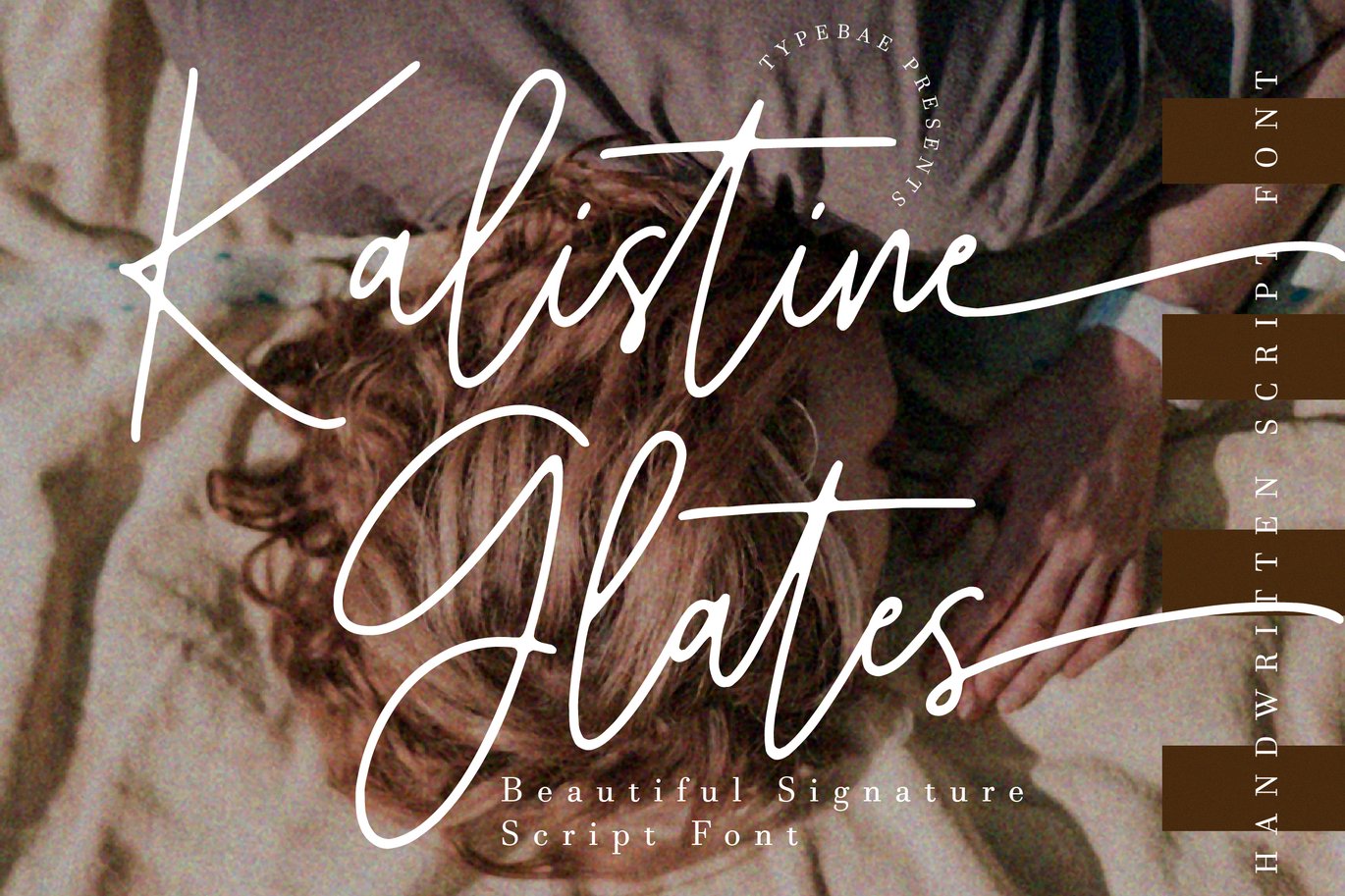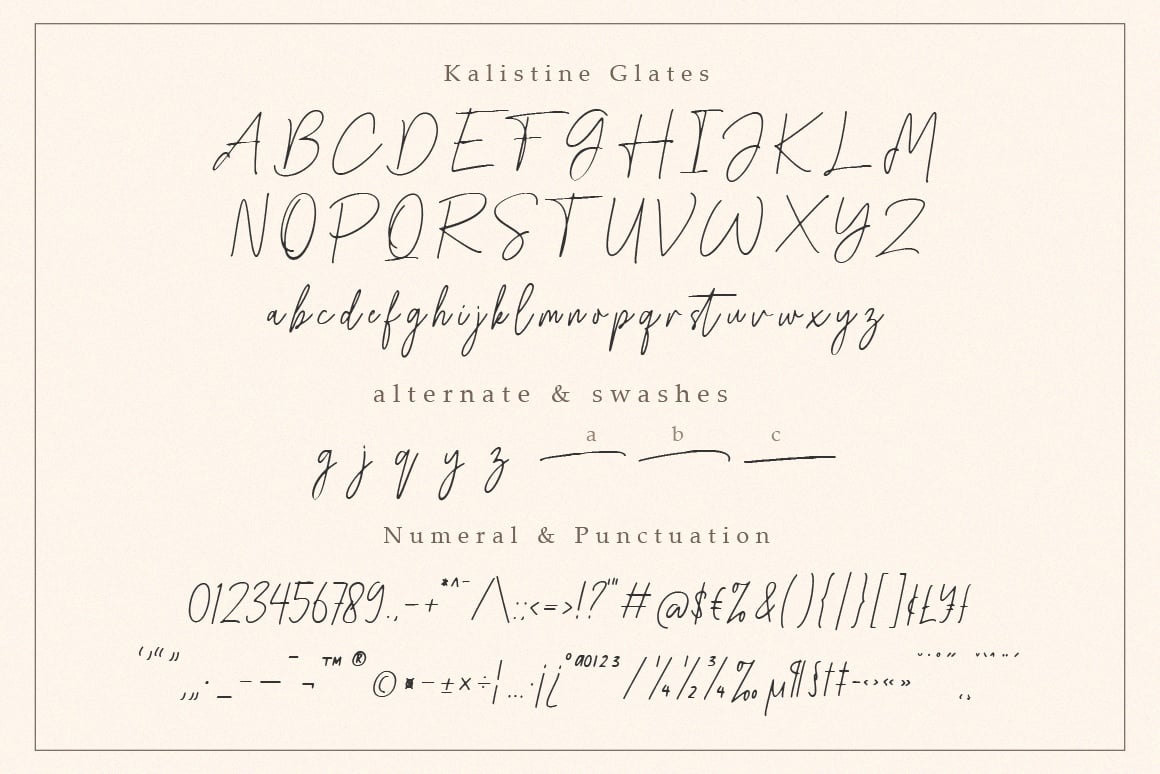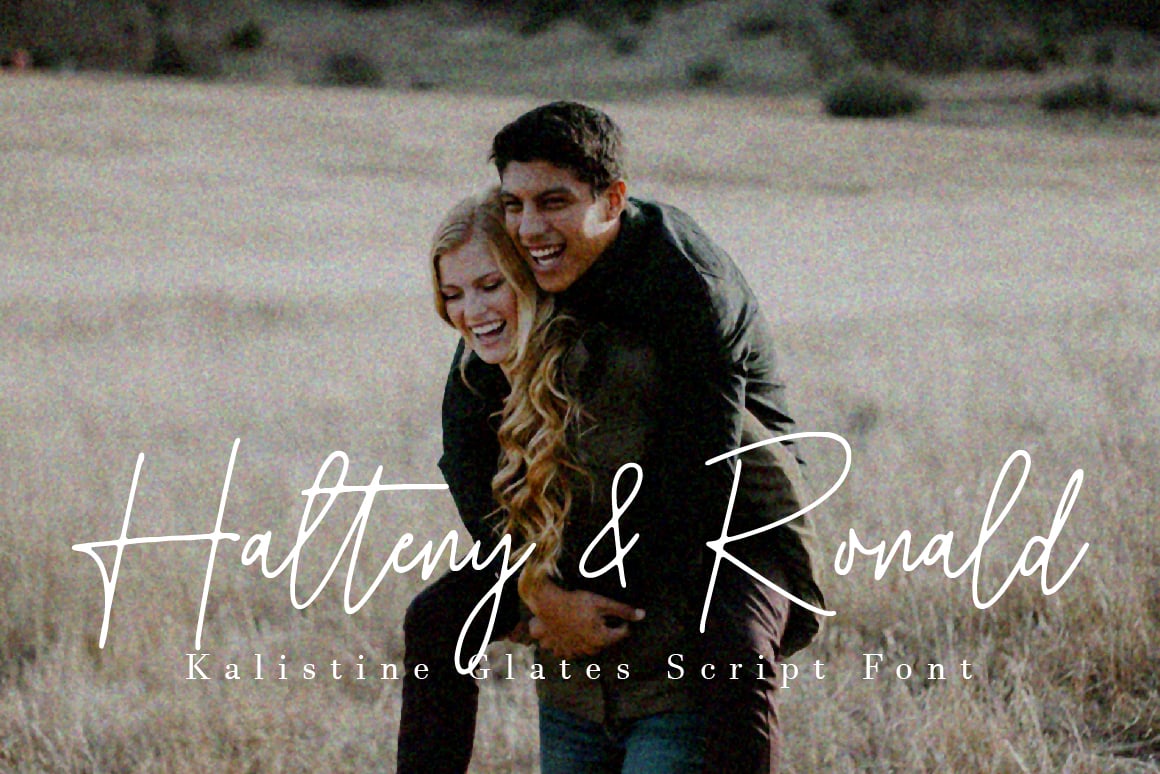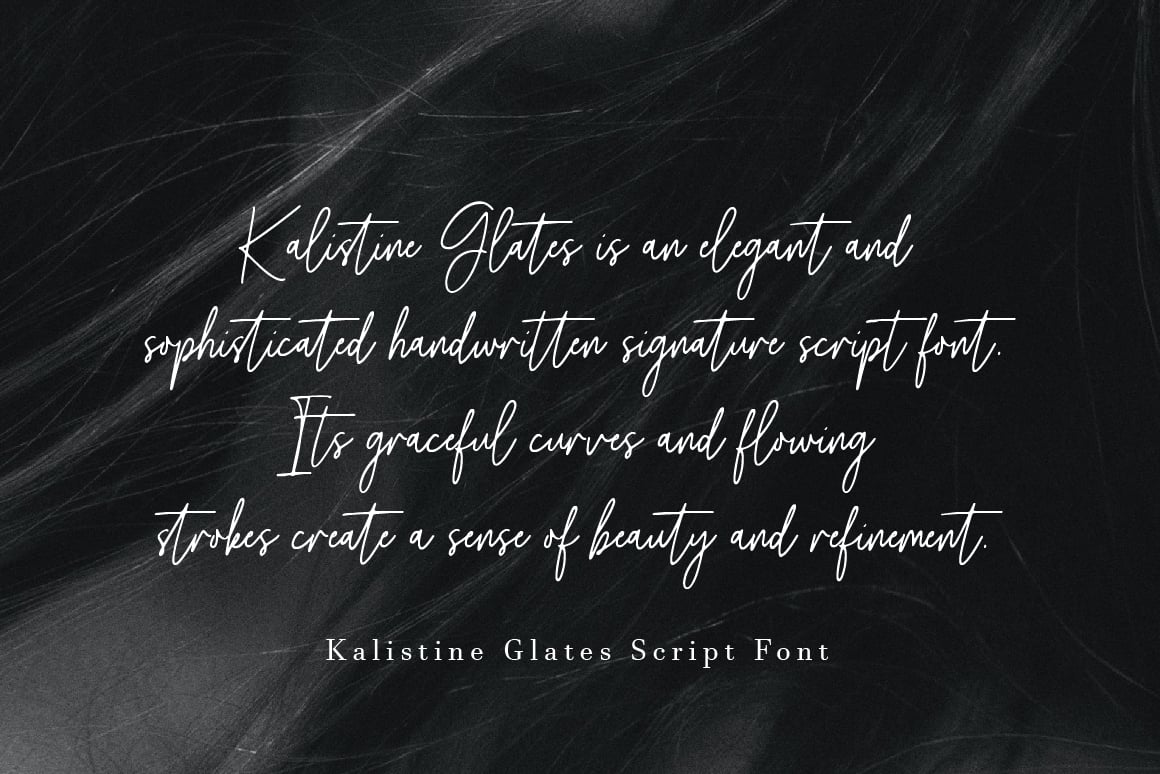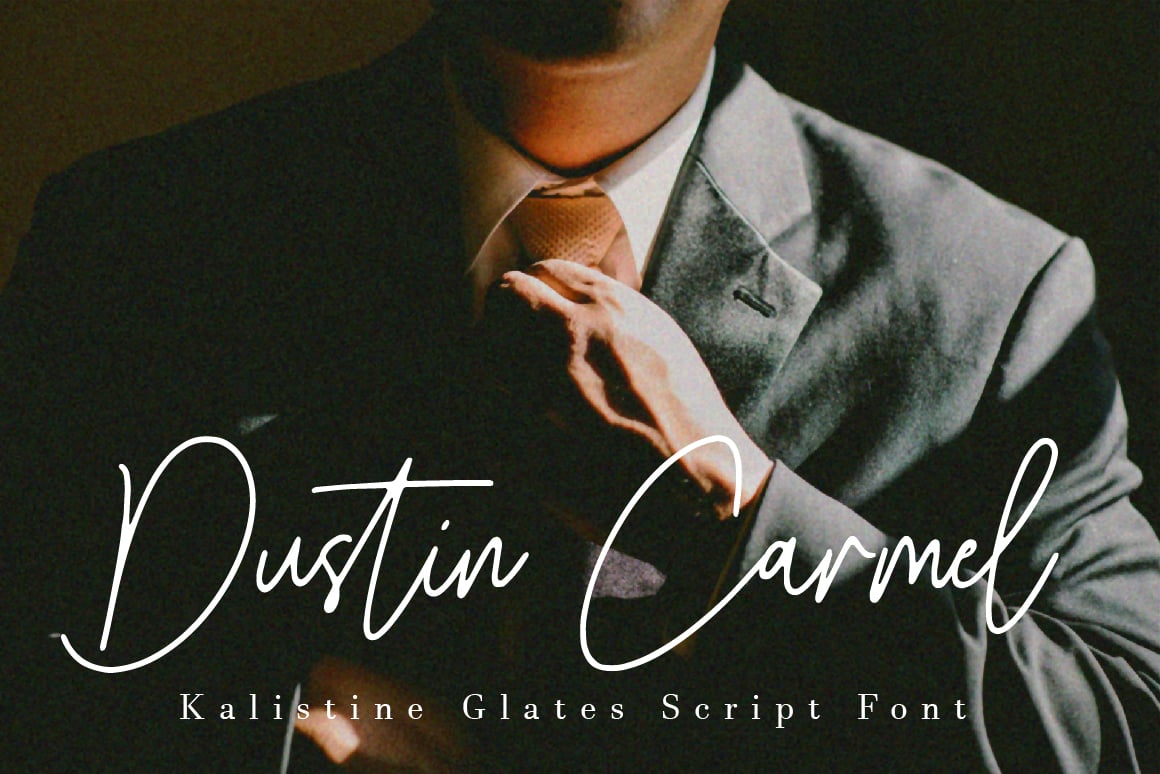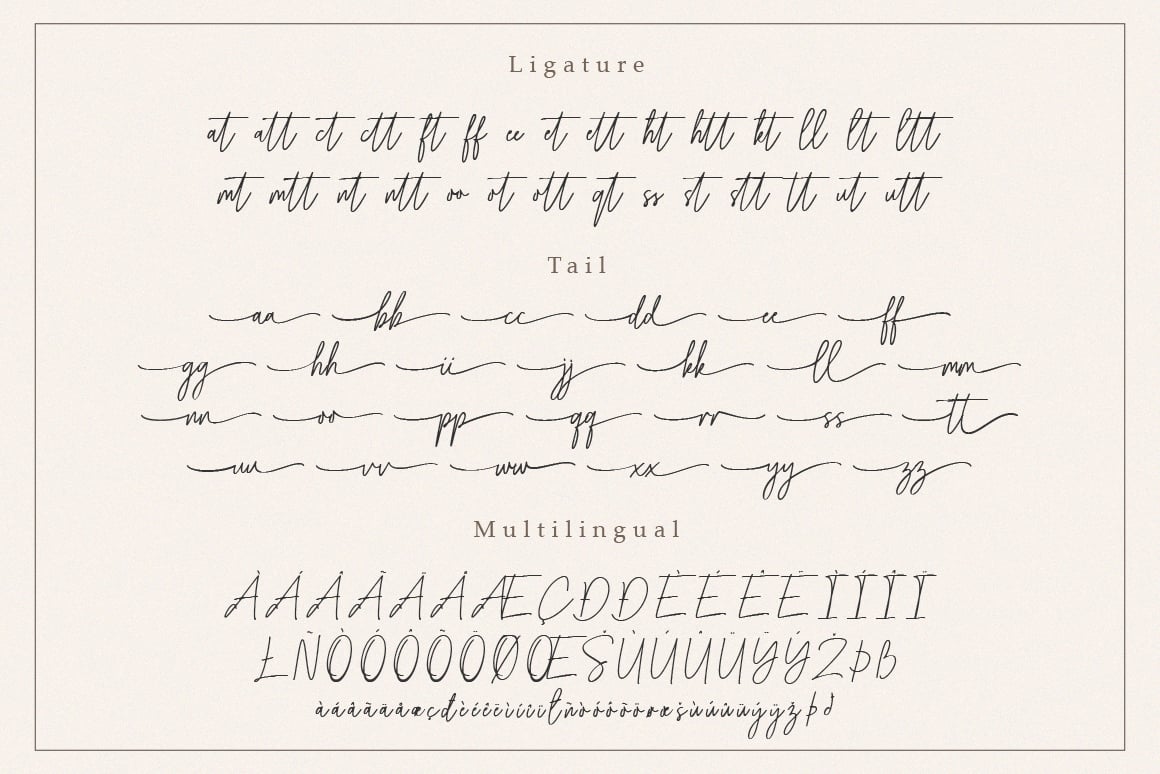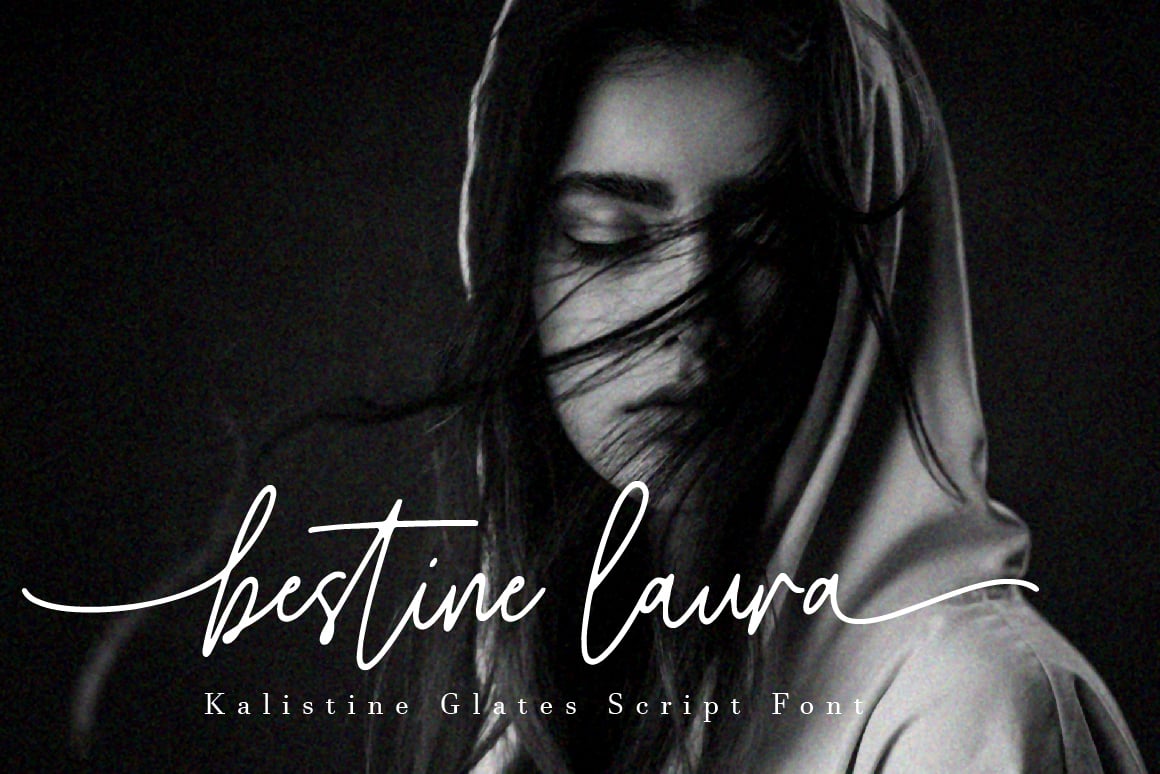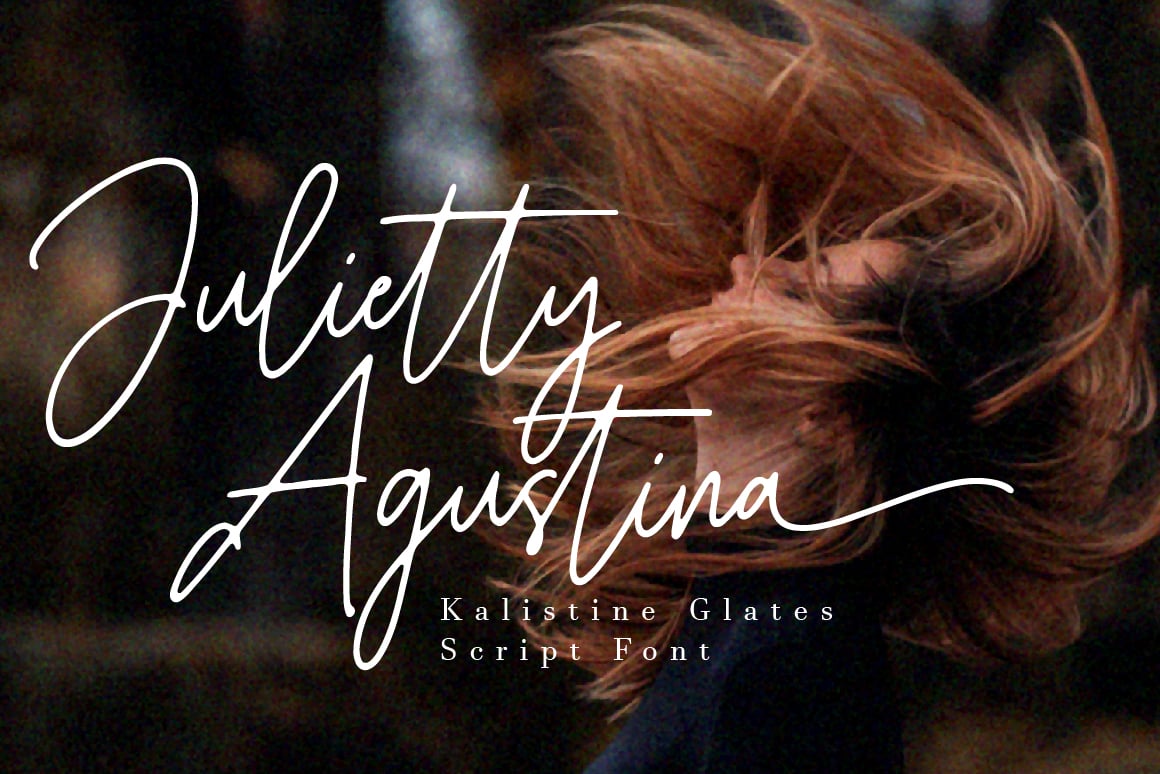
Kalistine Glates – Tail Script Font
Kalistine Gates is an exquisite and refined handwritten signature script font that exudes elegance. It features beautifully designed beginning and ending swashes, adding a touch of sophistication to any written text.
To use beginning and ending swashes (tail), you don’t need to use software that supports opentype, because we have made it separately so it’s very easy to use.
- Kalistine Glates regular & tail
- Full alphabet and punctuation
- Ligature & alternate feature
- Multilingual Support: Afrikaans, Basque, Breton, Catalan, Danish, Dutch, English, Finnish, French, Gaelic (Irish, Scots), German, Icelandic, Indonesian, Irish, Italian, Norwegian, Portuguese, Saami (Southern), Spanish, Swahili, Swedish.